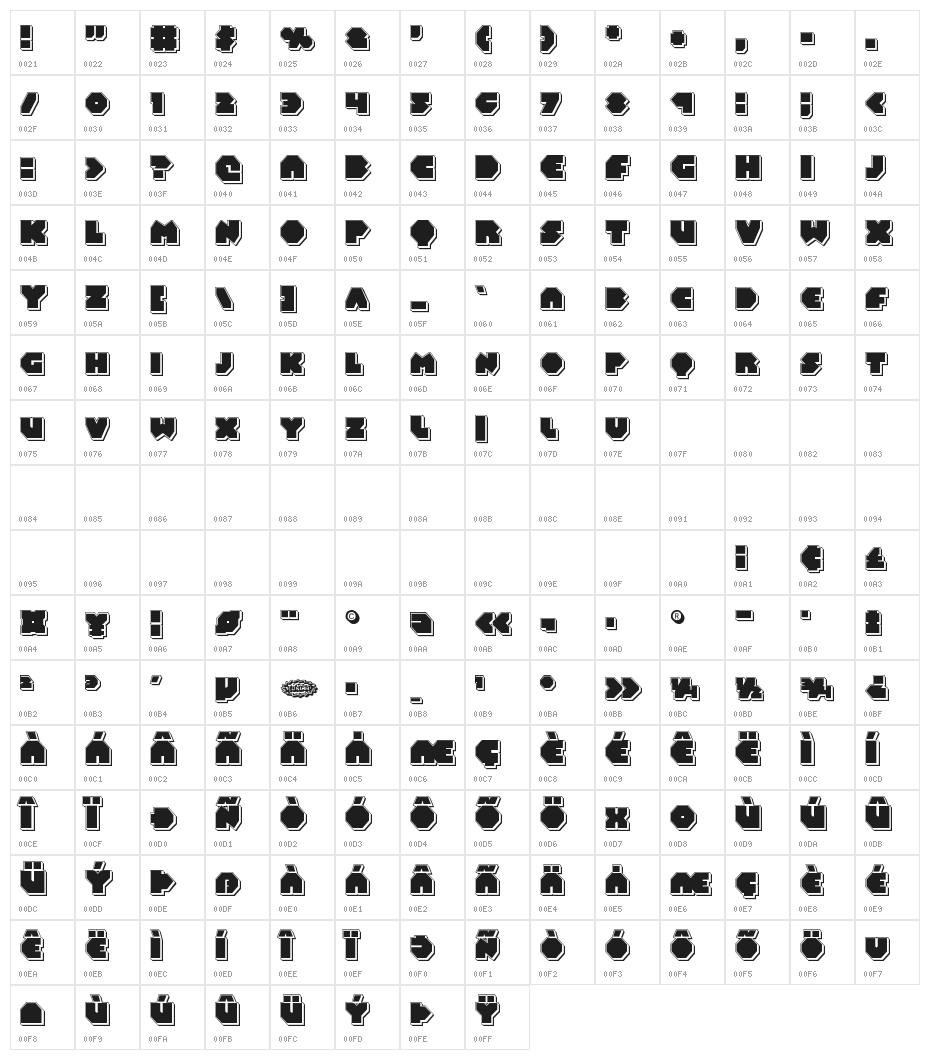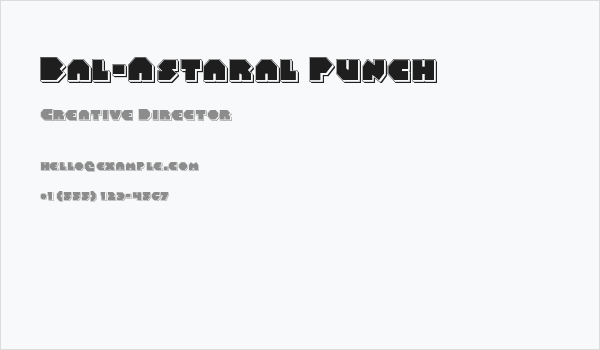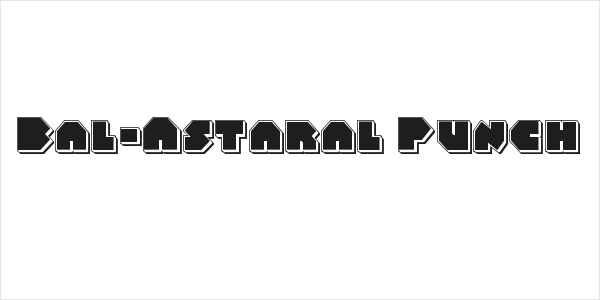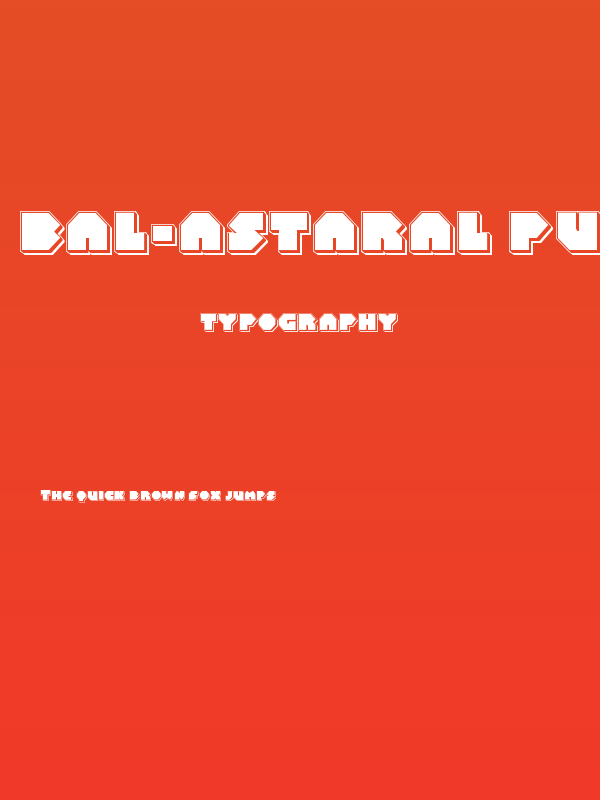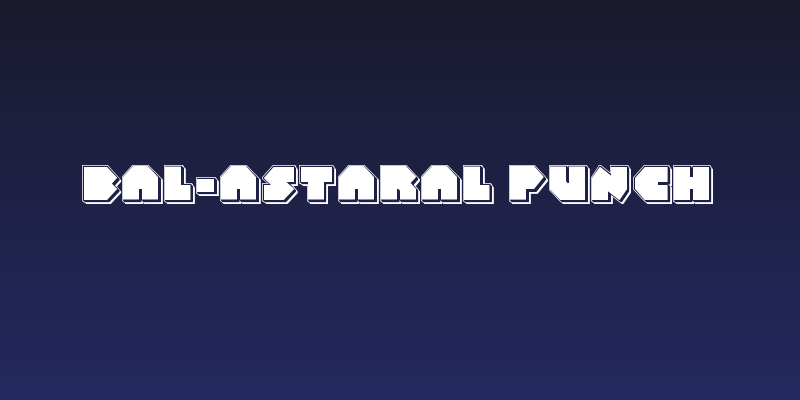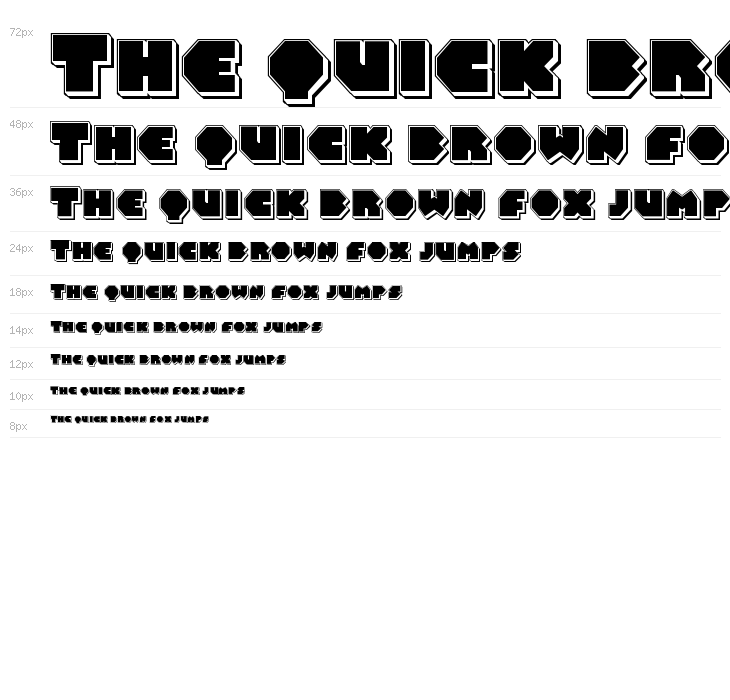
Bal-Astaral Punch Font
Bal-Astaral Punch Description
This font features a bold, geometric style with a strong, three-dimensional effect. Each character is outlined with a thick border, creating a striking contrast between the inner and outer sections. The design is reminiscent of block letters, with sharp angles and a futuristic aesthetic. The uppercase and lowercase letters maintain a consistent style, while the numbers and special characters are crafted to match the overall bold and dynamic appearance. This font is ideal for projects that require a standout, modern look.